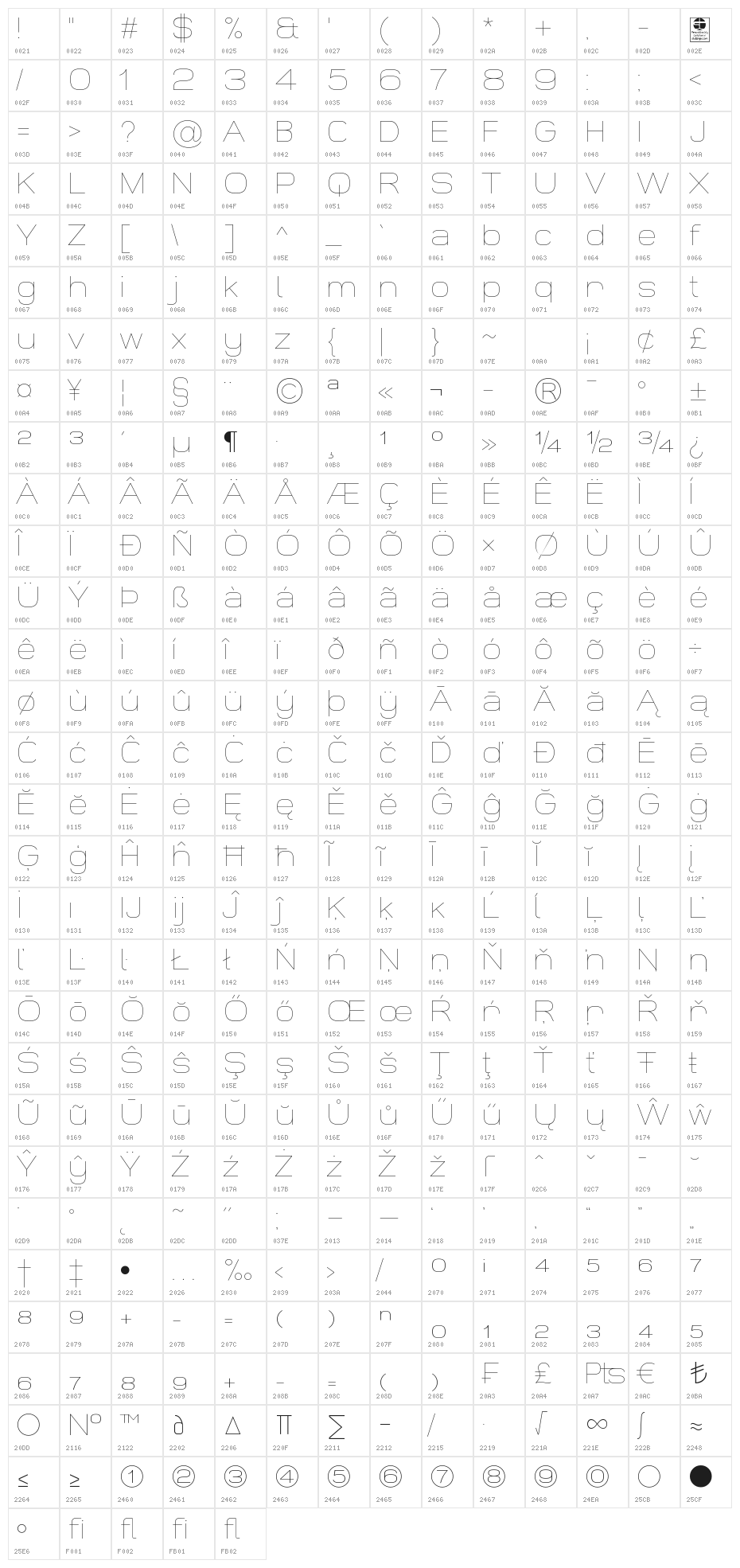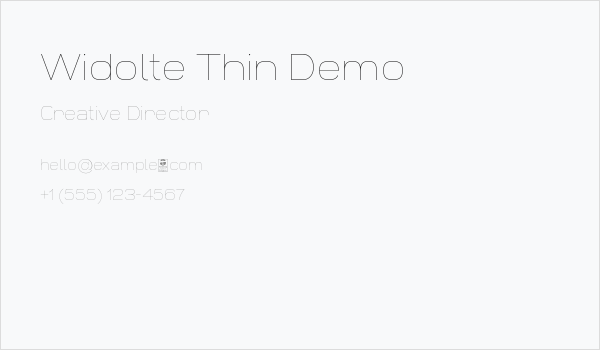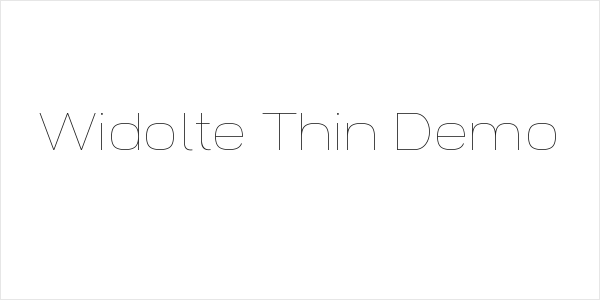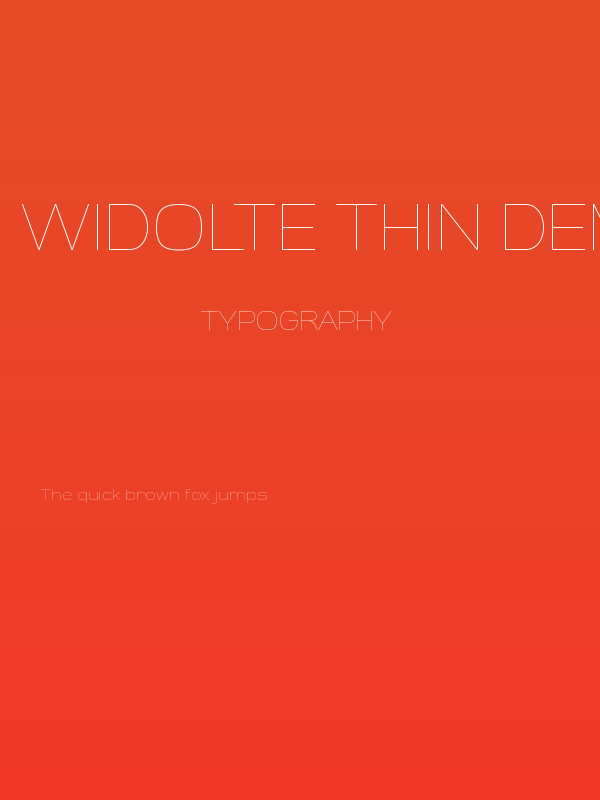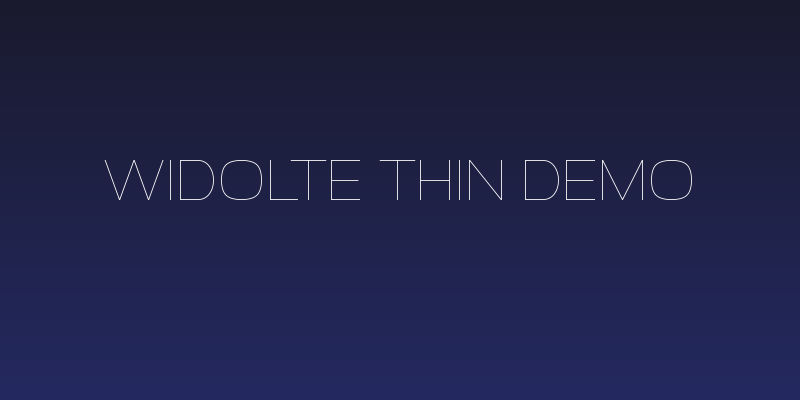
Widolte Thin Demo Font
| Progetti proposti | Ideal for modern branding, minimalist posters, sleek website headers, and contemporary editorial layouts. |